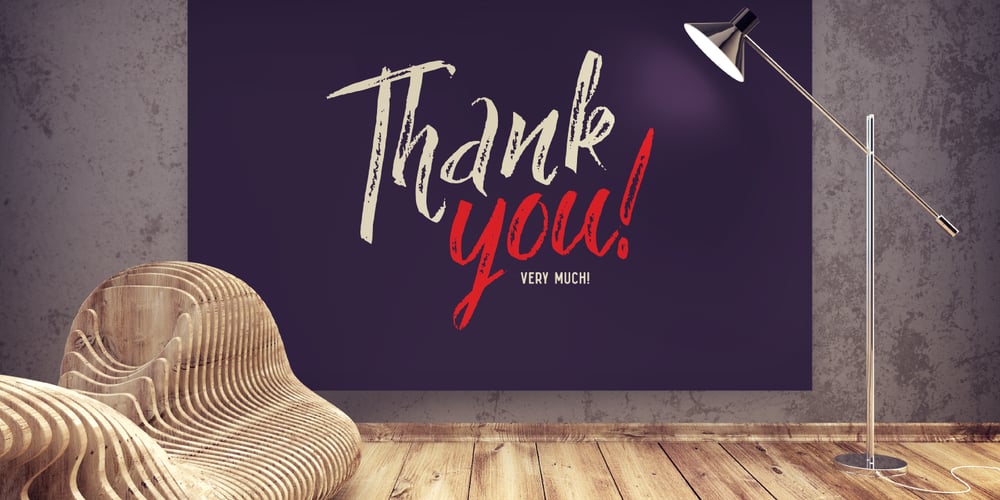
Limber
Limber font
Limber Font Family was designed by Gleb Guralnyk and published by Gleb Guralnyk. Limber contains 1 styles and family package options. Hello! Presenting a calligraphic handcrafted font named “Limber”. It has 26 alternate glyphs, 12 ligatures and multilingual support.